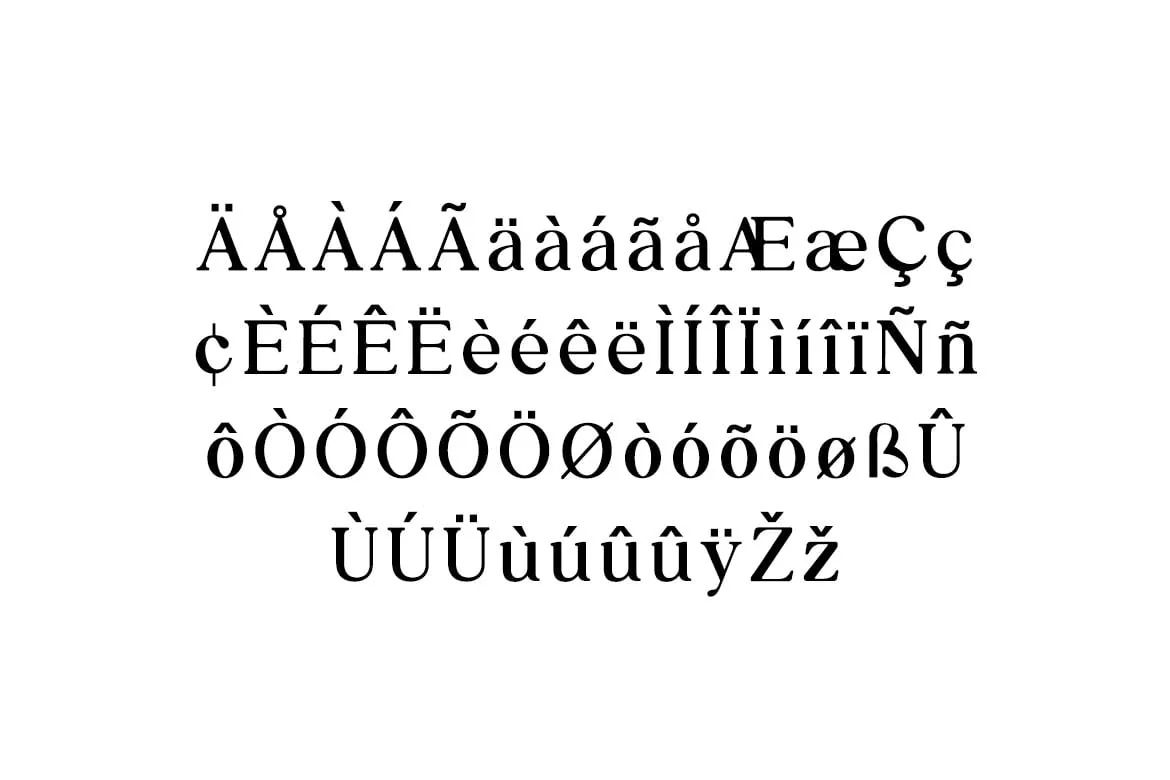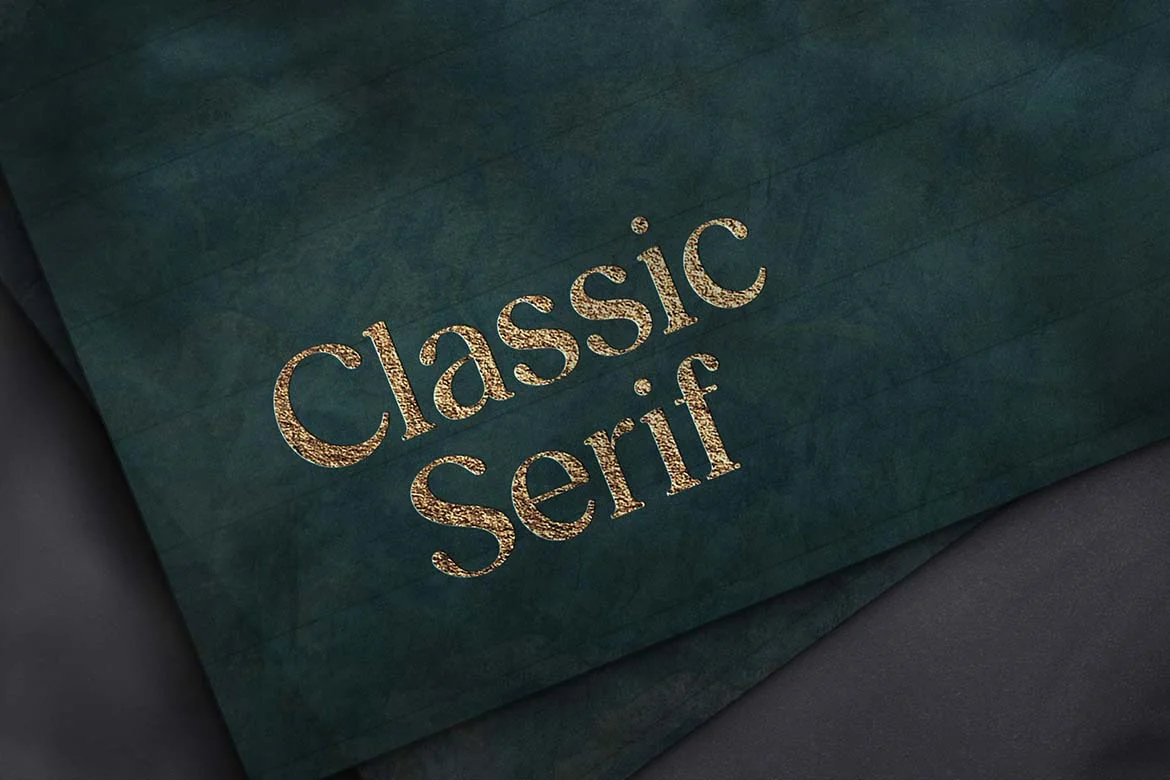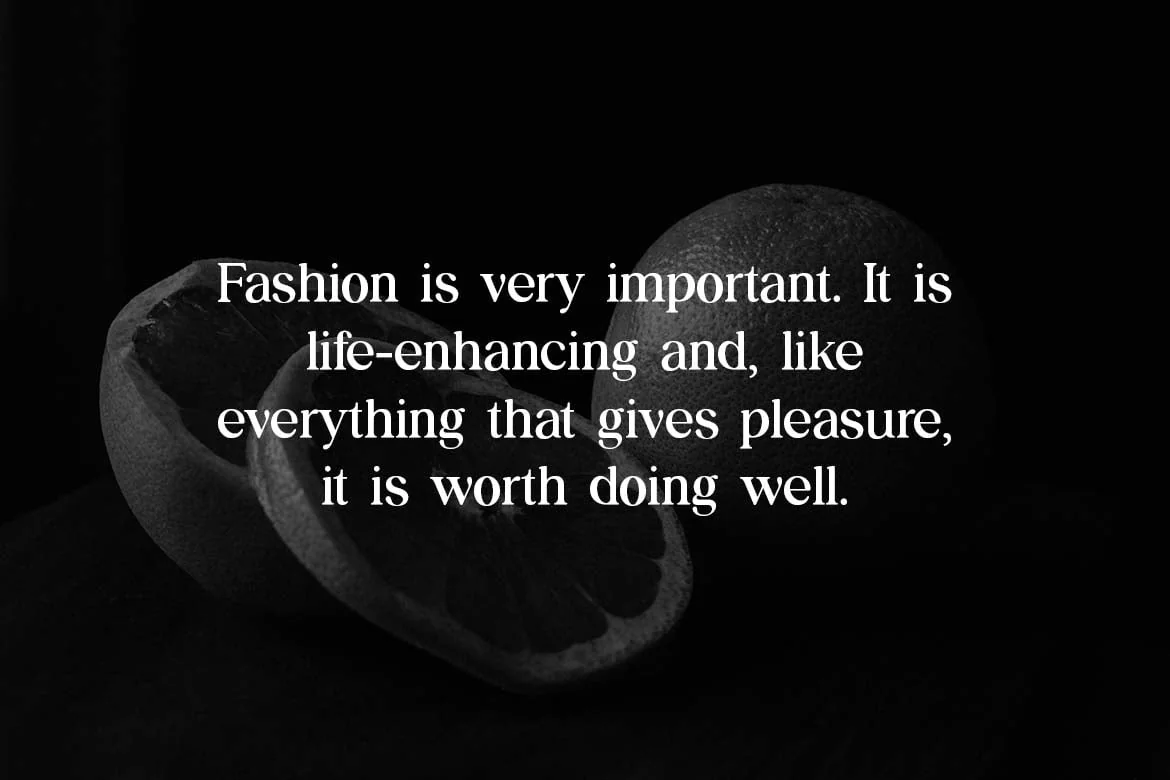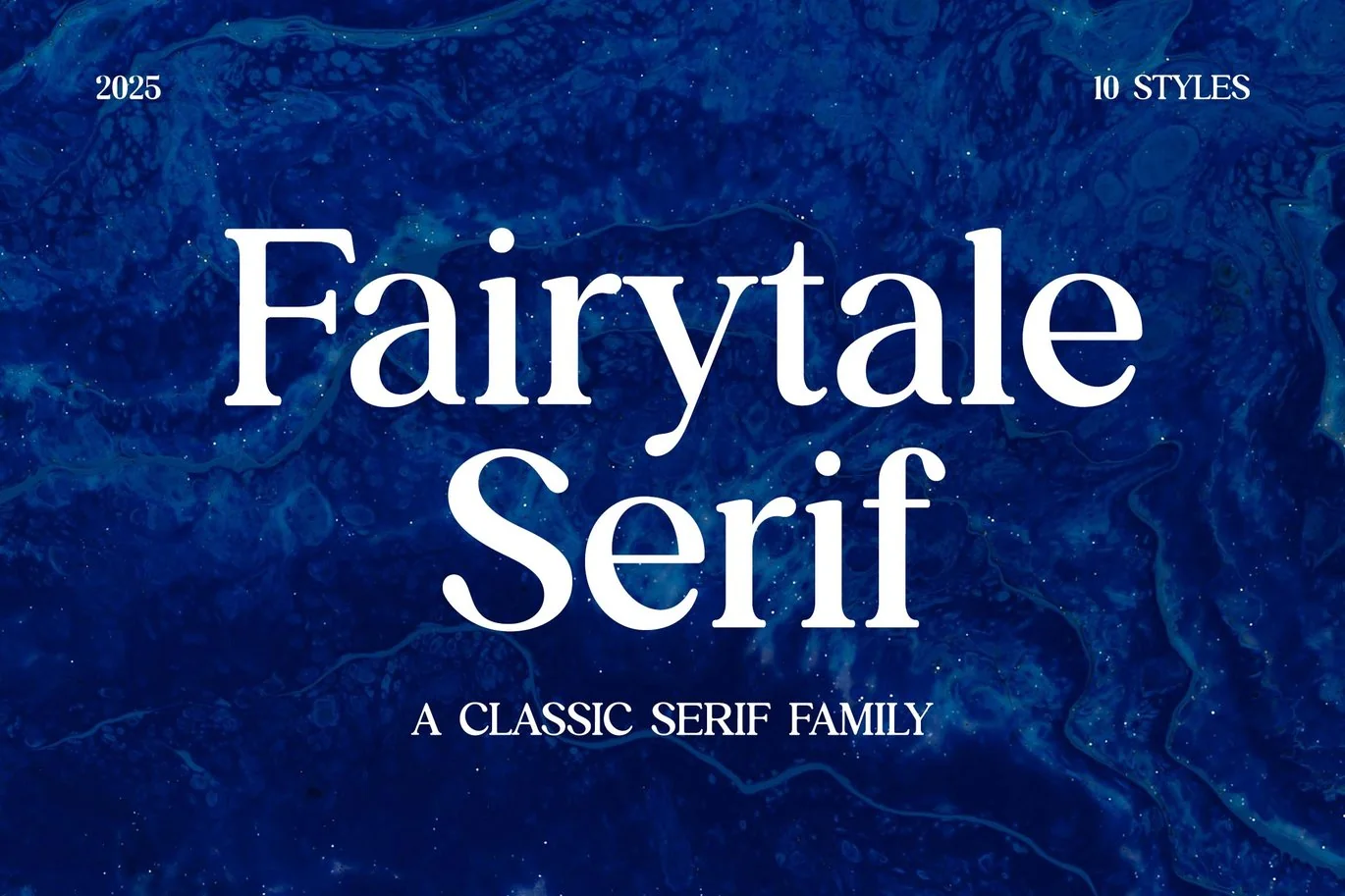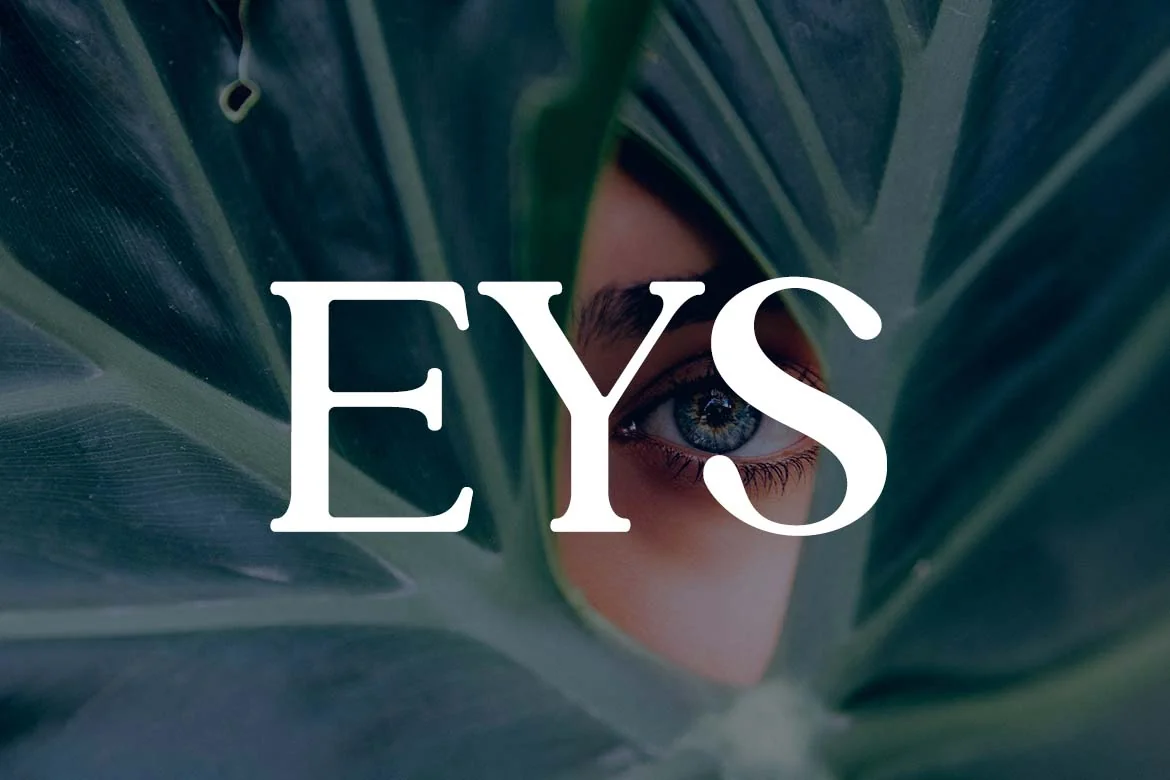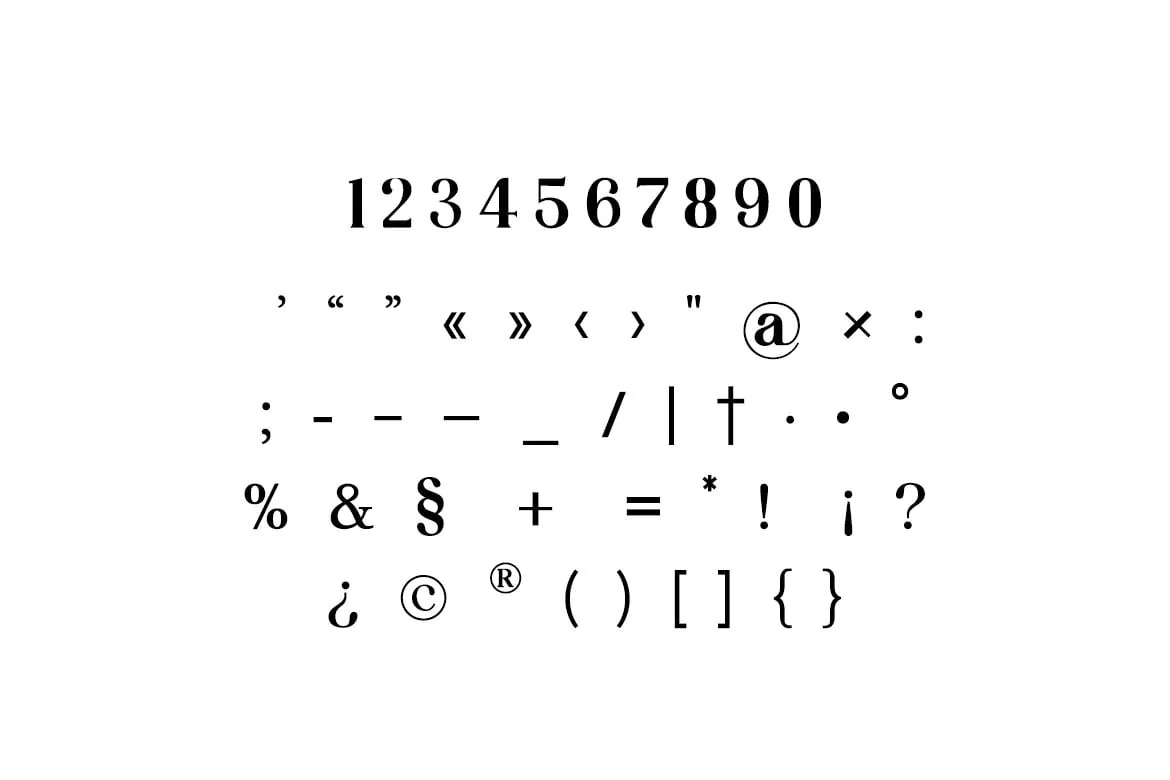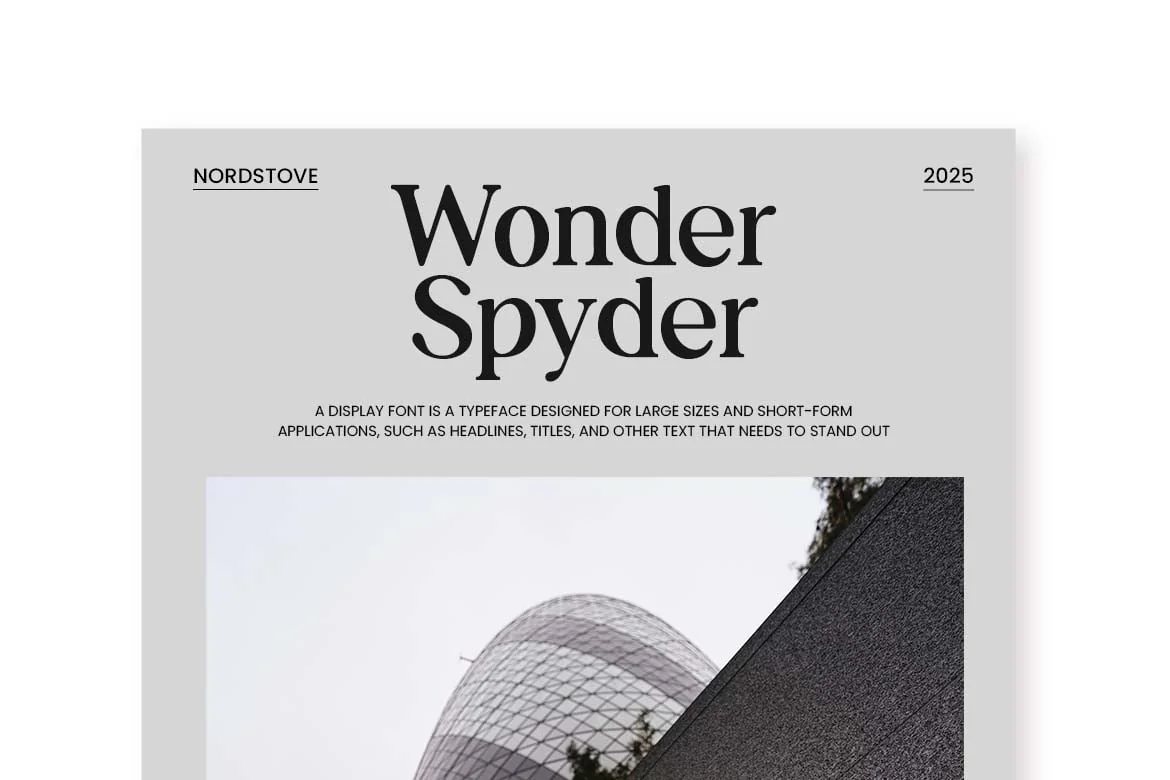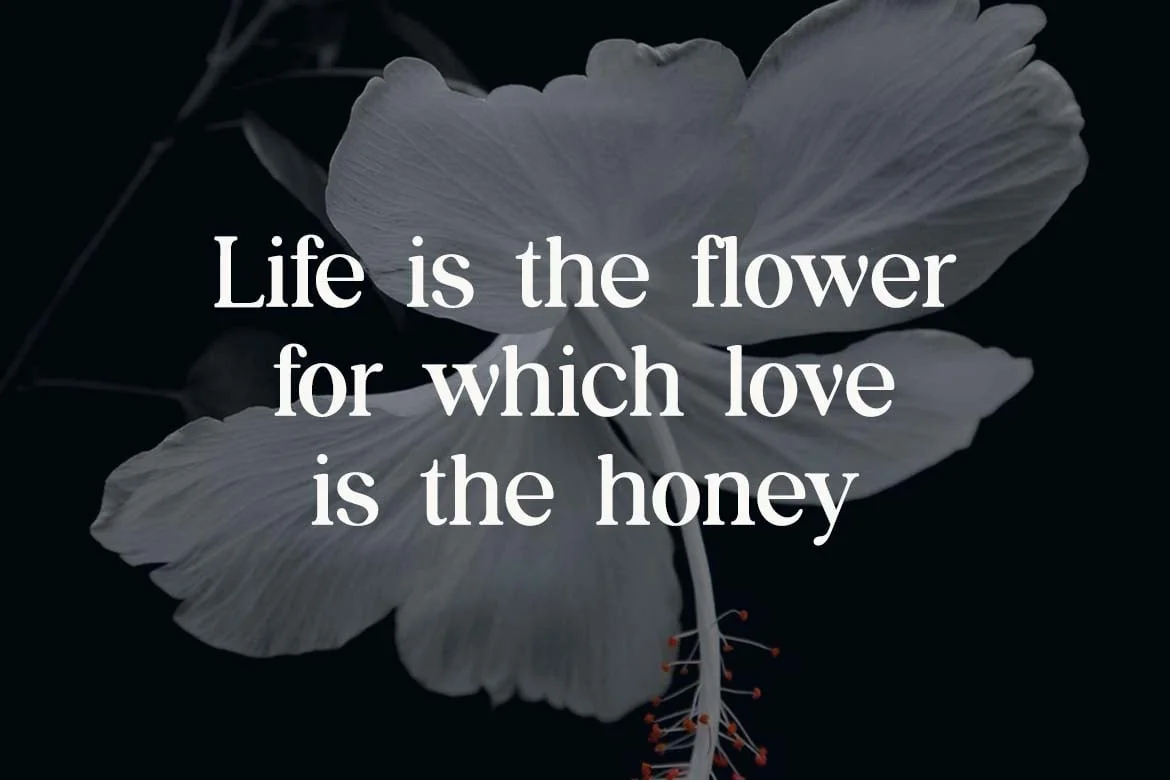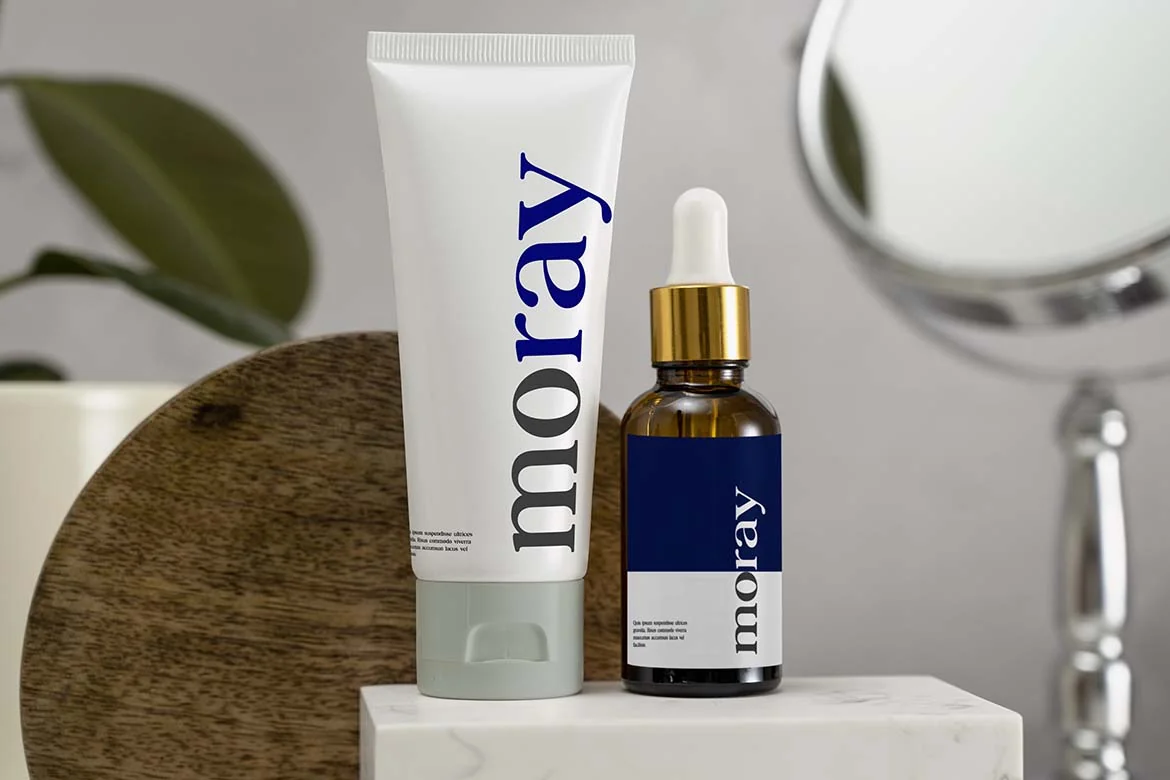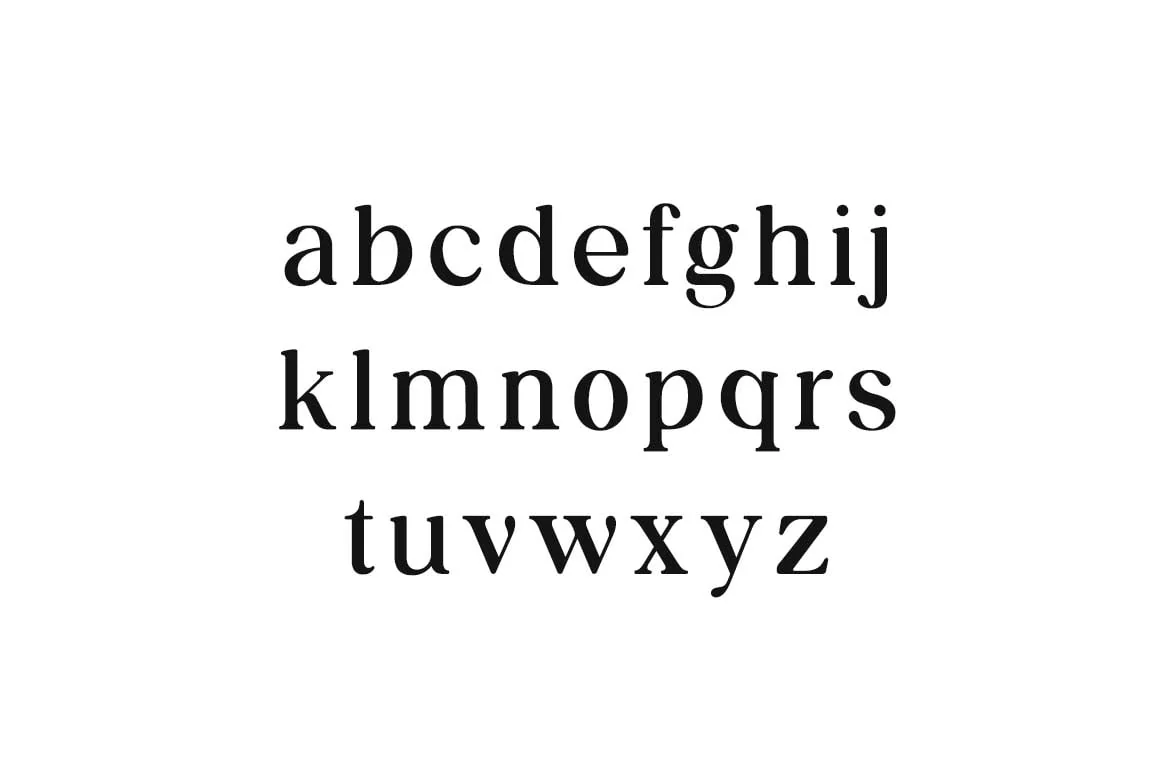
Fairytale Classic Serif Font Family
Introducing our new product the name is Fairytale Classic Serif Font Family. Fairytale Classic Serif Font Family that feels beautiful classy, elegant, and modern. This font is perfectly suited for a wide variety of projects, such as signature, stationery, logo, wedding, typography quotes, magazine or book covers, website headers, branding, packaging design, and more. Also, fashion-related branding or editorial design displays both masculine and feminine qualities.
Fairytale Classic Serif Font Family is a classic display/headline serif font that captures the essence of timeless elegance and storybook charm. With its graceful and enchanting design, this font is perfect for creating eye-catching headlines, posters, logos, and designs that require a touch of magical sophistication.
Fairytale Classic Serif Font Family is available in two styles: Regular and Oblique. The Regular style offers a sophisticated and timeless appeal, while the Oblique style adds a subtle slanted effect for a more dynamic and whimsical look.
This font features distinct serifs, elegant letterforms, and flowing curves that instantly transport you into a world of classic storytelling and refined typography. Its expertise lies in delivering an authentic and captivating typography experience, making it an ideal choice for designers seeking to create designs with a touch of storybook magic.